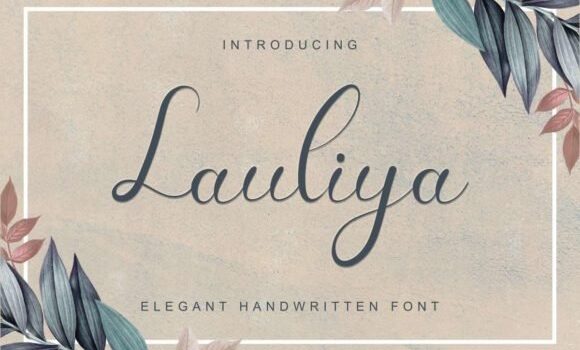
Lauliya Font – Free Download Introduction to Lauliya Font Lauliya is a sweet, soft hand-lettered handwritten font. 📸 Preview Gallery 6 images 📌 Product Name Lauliya Font 👤 Author EdricStudio 📂 Category Explore ⬇️ Download Lauliya Font FREE Free Download